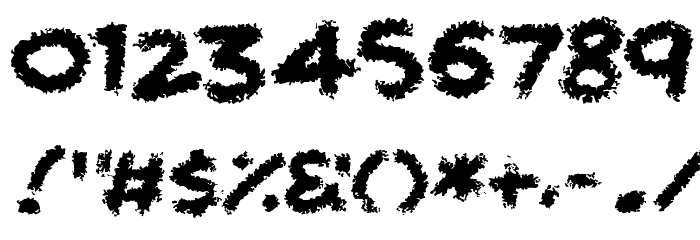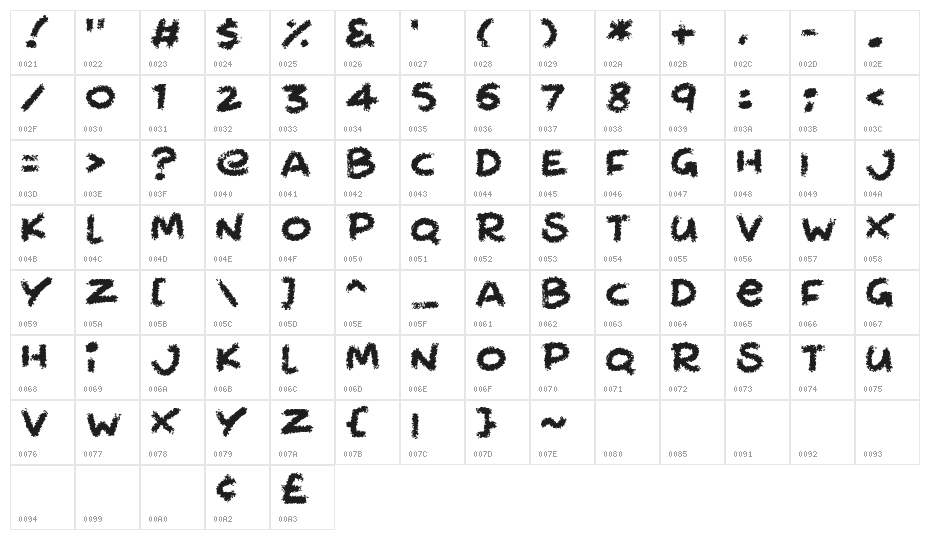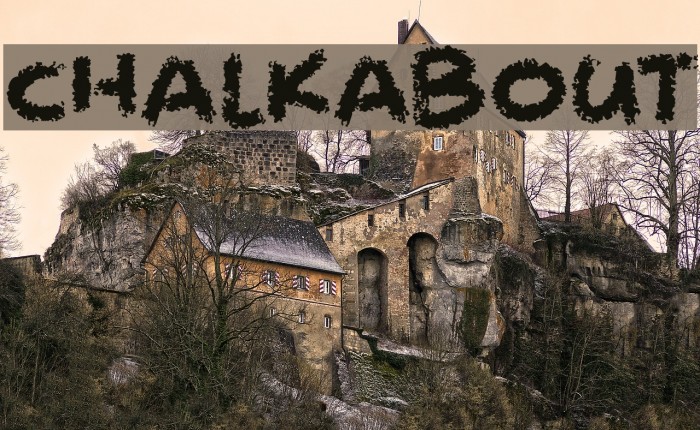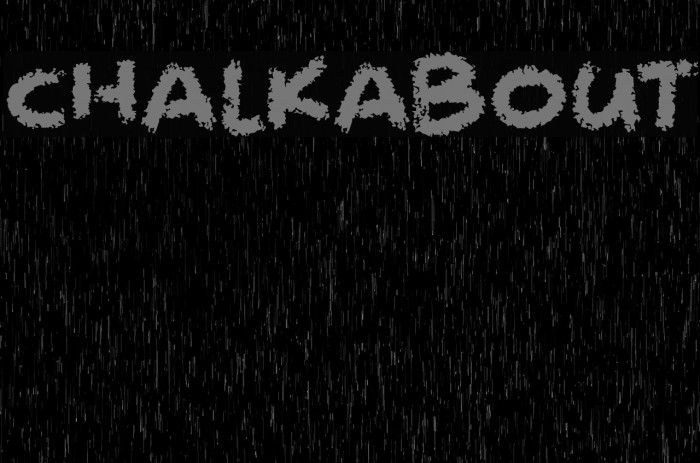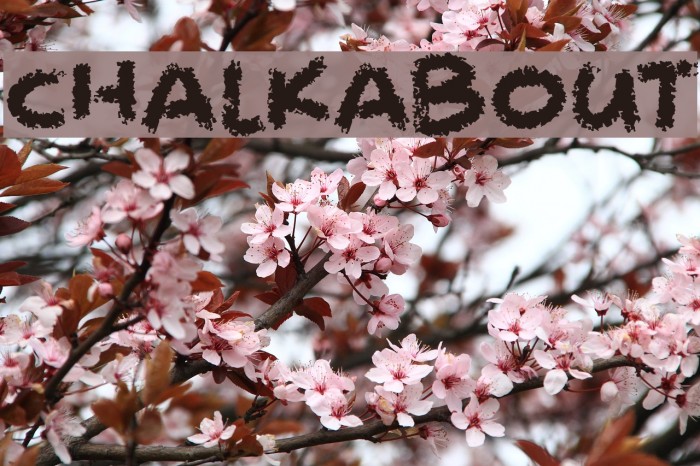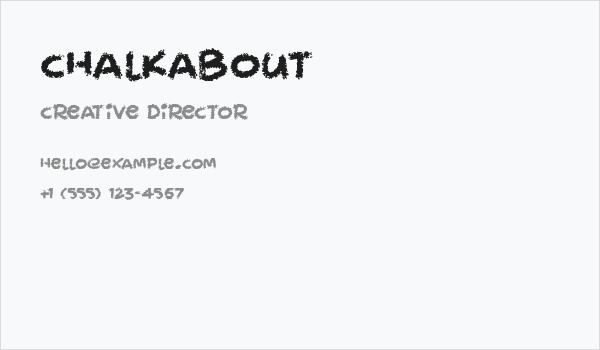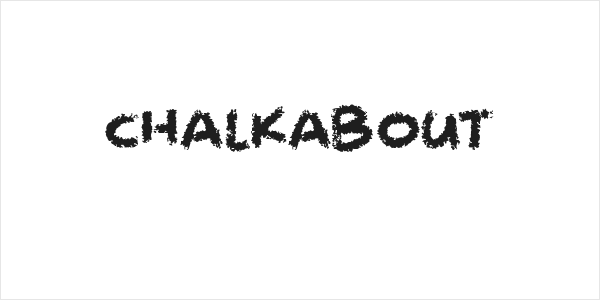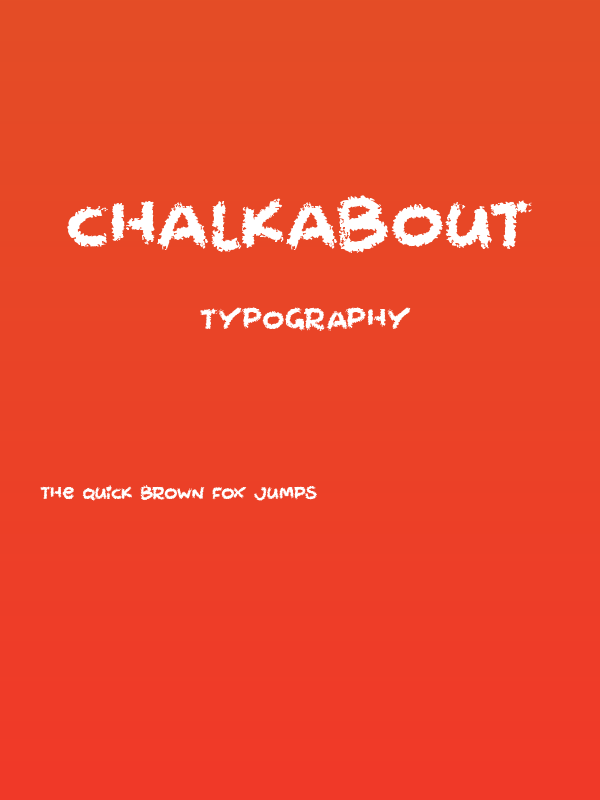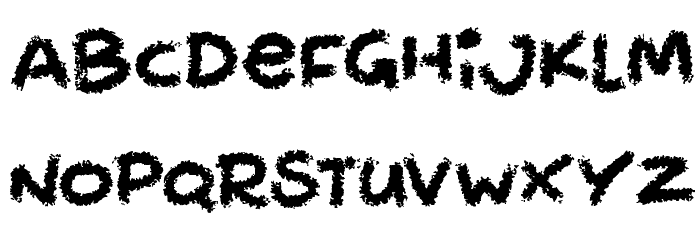
Chalkabout Font
Chalkabout Description
This font features a playful and textured style reminiscent of chalk writing on a blackboard. The characters have a rough, uneven edge that gives them a hand-drawn appearance. Each letter and number is bold and distinct, with a slightly irregular shape that adds to the informal and whimsical feel. The font maintains a consistent weight throughout, ensuring readability while still conveying a sense of fun and creativity. Its unique texture makes it stand out, ideal for projects that require a casual and artistic touch.
| Overall Style | Playful, Artistic |
| Use Case | Headlines, Posters, Creative projects |
| Proposed Projects | Ideal for educational materials, children's books, playful branding, and creative posters. |